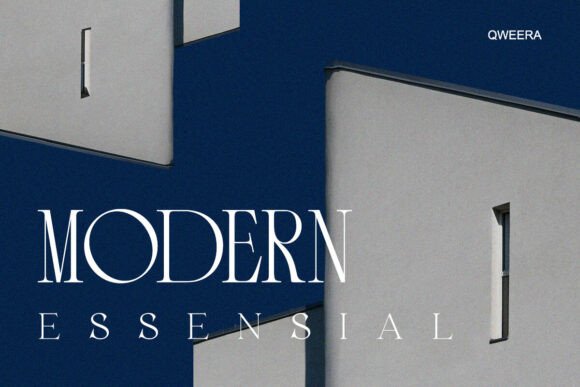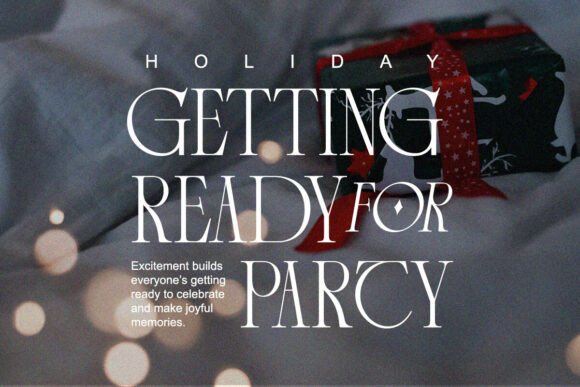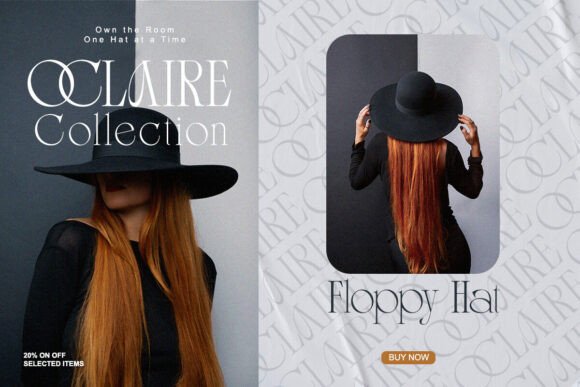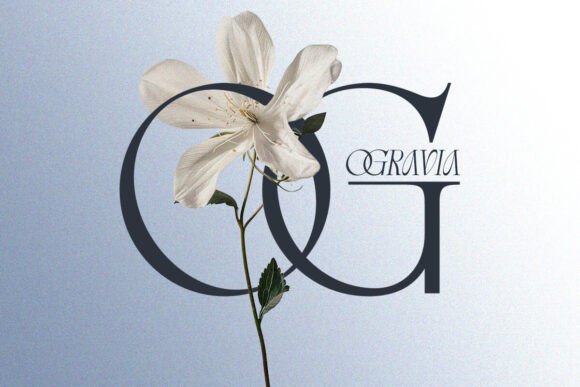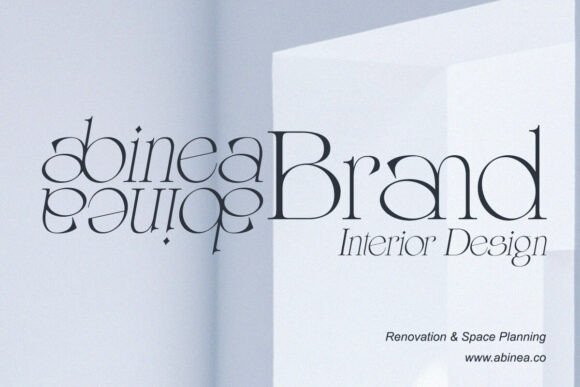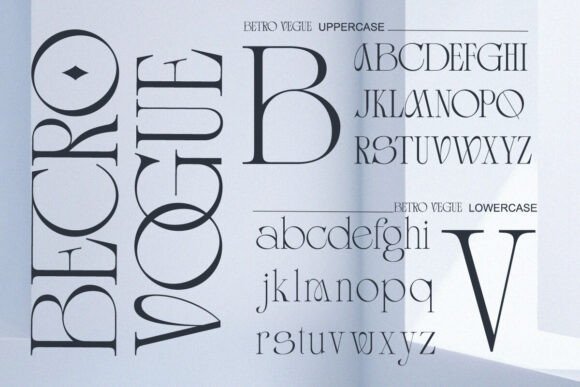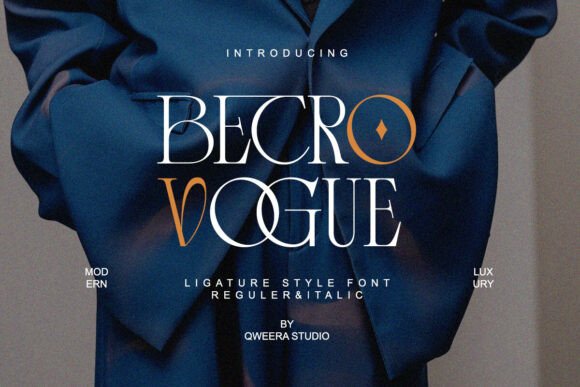
Betro Vogue Font: Elevate Your Brand with Modern Elegance and Timeless Sophistication
In the world of typography, luxury branding demands a font that exudes sophistication, elegance, and refinement. Introducing Betro Vogue, a breathtaking contemporary serif font that redefines luxury typography with its sophisticated design. This modern elegant font is expertly crafted for elite branding, high-end logos, luxury packaging, and editorial designs that demand prestige and visual impact.
Unparalleled Versatility for Luxury Brands
Betro Vogue features both Regular and Italic styles, providing unparalleled versatility for luxury brands. The font’s razor-sharp serifs and graceful italic variant make it perfect for a wide range of applications, from high-end fashion brands to luxury packaging and editorial designs. Whether you’re looking to create a sophisticated logo, elegant packaging, or a refined editorial design, Betro Vogue is the perfect choice.
Exquisite Alternates and Ligatures
One of the standout features of Betro Vogue is its meticulously designed alternates and ligatures. These exquisite typographic elements enable flawless typographic compositions that exude exclusivity and refinement. The alternates and ligatures provide a level of sophistication and elegance that is unmatched by other fonts, making Betro Vogue the perfect choice for luxury brands that demand the highest level of typographic excellence.
Modern Elegance Meets Timeless Sophistication
Betro Vogue is more than just a font – it’s a statement of luxury and sophistication. With its modern elegant design and timeless sophistication, this font is perfect for brands that want to make a lasting impression. Whether you’re looking to create a bold and eye-catching design or a refined and elegant one, Betro Vogue has the versatility to deliver.
Betro Vogue is a font that is perfect for designers and crafters who demand the highest level of quality and sophistication. With its wide range of applications, from luxury branding to editorial designs, this font is a must-have for anyone looking to elevate their design to the next level. Whether you’re a professional designer or a crafty DIY enthusiast, Betro Vogue is the perfect choice for anyone looking to add a touch of luxury and sophistication to their work.
Key Features of Betro Vogue Font
- Contemporary serif font: Betro Vogue is a modern serif font that redefines luxury typography with its sophisticated design.
- Regular and Italic styles: The font features both Regular and Italic styles, providing unparalleled versatility for luxury brands.
- Exquisite alternates and ligatures: Betro Vogue includes meticulously designed alternates and ligatures that enable flawless typographic compositions.
- Luxury branding: The font is expertly crafted for elite branding, high-end logos, luxury packaging, and editorial designs that demand prestige and visual impact.
- Modern elegance and timeless sophistication: Betro Vogue combines modern elegance with timeless sophistication, making it perfect for brands that want to make a lasting impression.
| Font Name | Betro Vogue Font |
| Author | Qweera Studio |
In conclusion, Betro Vogue is a breathtaking contemporary serif font that is perfect for luxury brands that demand the highest level of typographic excellence. With its sophisticated design, exquisite alternates and ligatures, and unparalleled versatility, this font is a must-have for designers and crafters who want to elevate their design to the next level. Whether you’re looking to create a sophisticated logo, elegant packaging, or a refined editorial design, Betro Vogue is the perfect choice.